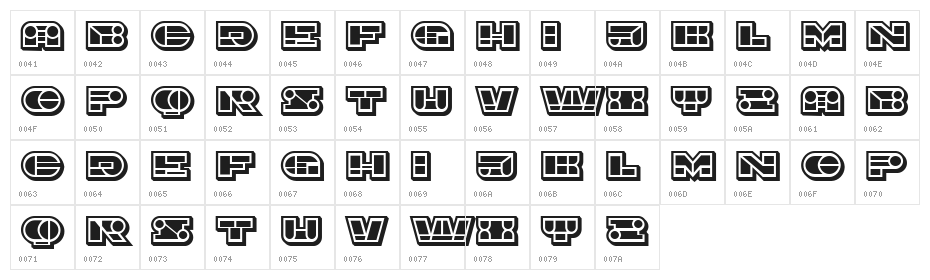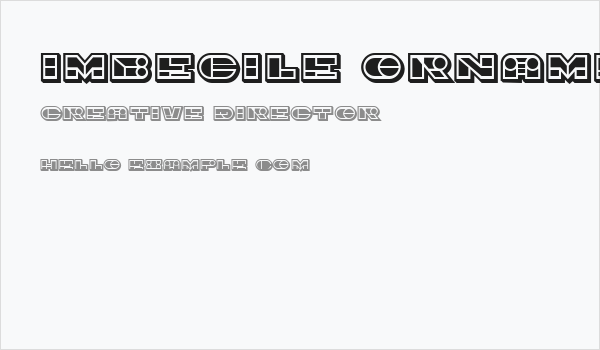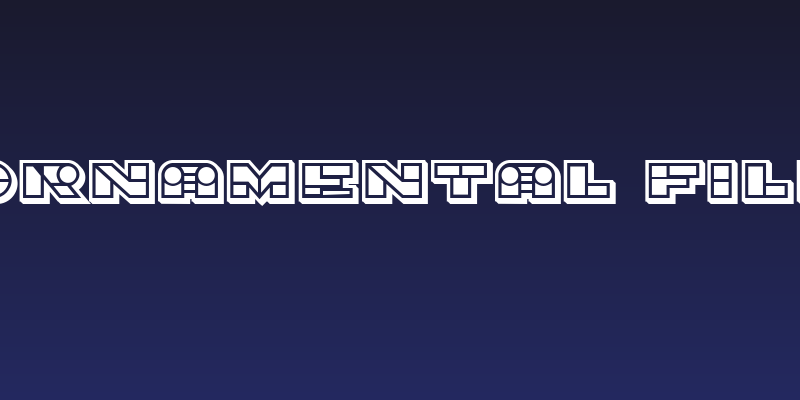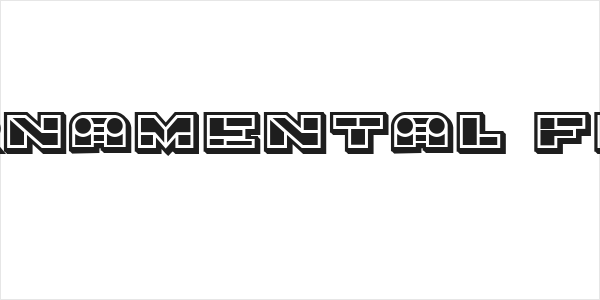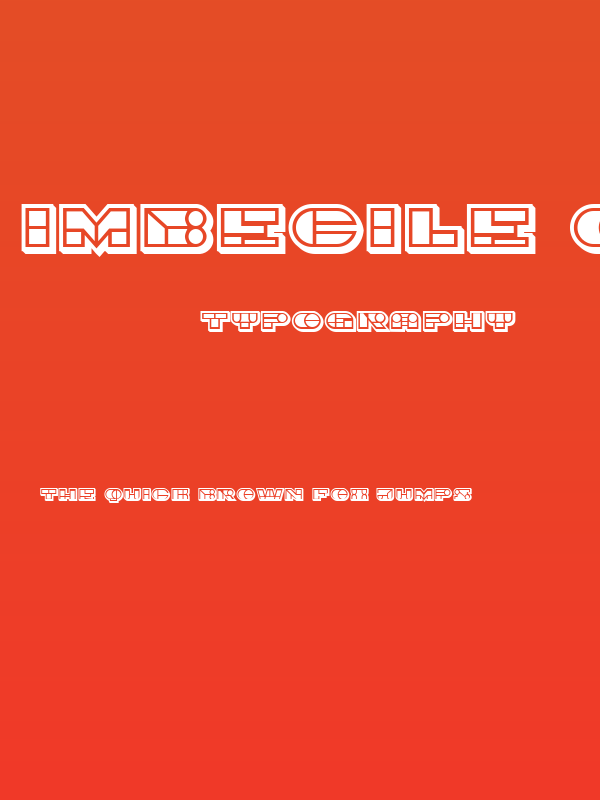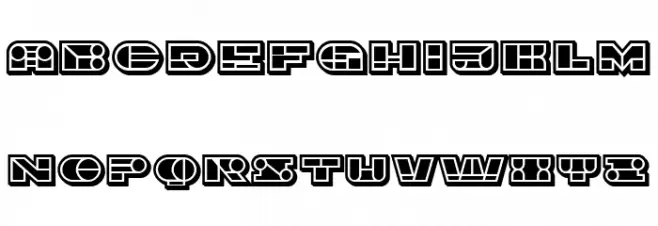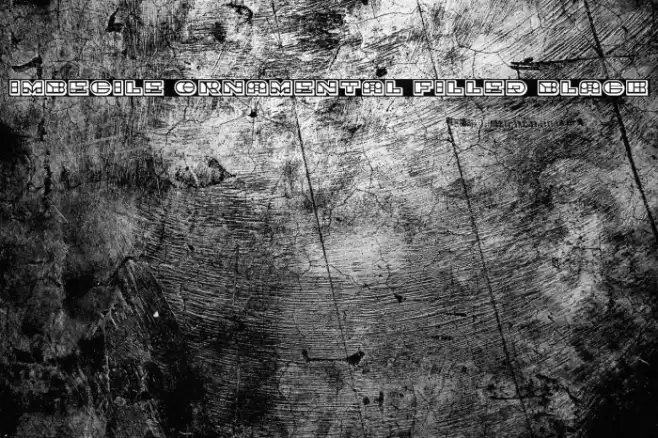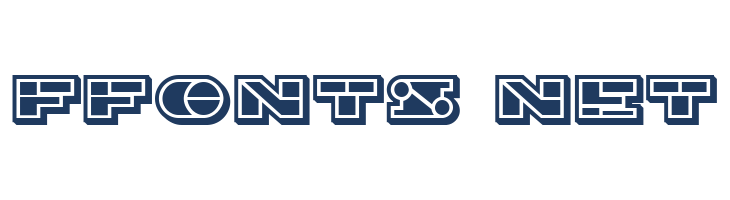
Imbecile Ornamental Filled Black Font
Imbecile Ornamental Filled Black Description
This font features a bold, ornamental design with a filled black style that emphasizes geometric patterns and intricate details. Each character is uniquely crafted with a combination of lines and shapes, creating a visually striking and decorative appearance. The uppercase and lowercase letters maintain a consistent style, while the numbers and special characters are designed to complement the overall aesthetic. The font's boldness and ornamental nature make it ideal for projects that require a strong visual impact.
| Proposed Projects | Ideal for posters, logos, branding, and any design project that requires a decorative and impactful typeface. |